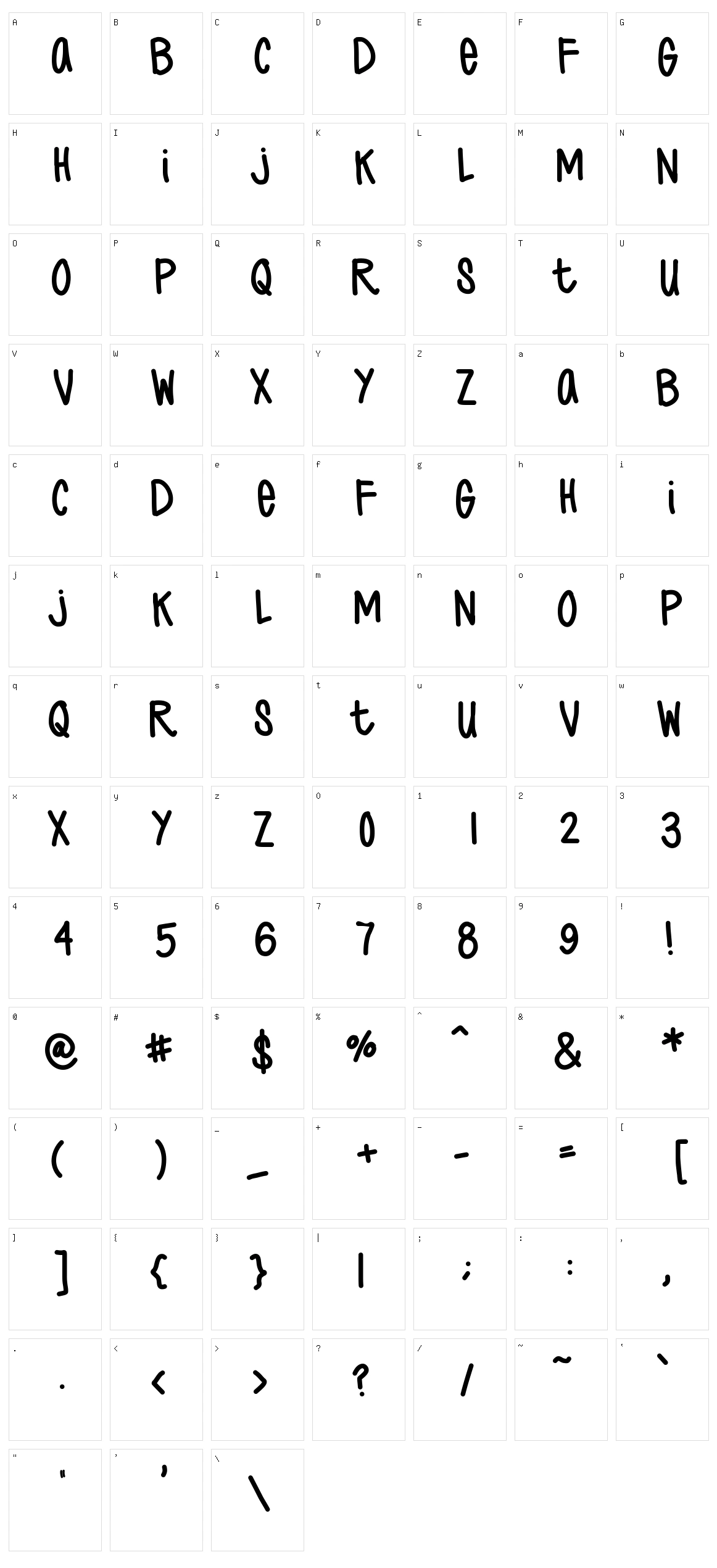
The free font Just Cole is carefully designed by Cole Huckabee, showcasing a thoughtful balance of creativity and usability and falls under the Script font style. When you download the ZIP file, it contains only 15.3 KB of font files, making it lightweight and quick to download. Please review the license details below to understand permitted usage and distribution rights. If license information is not available, we recommend using this font for personal projects only or contacting the author directly for commercial usage permissions.